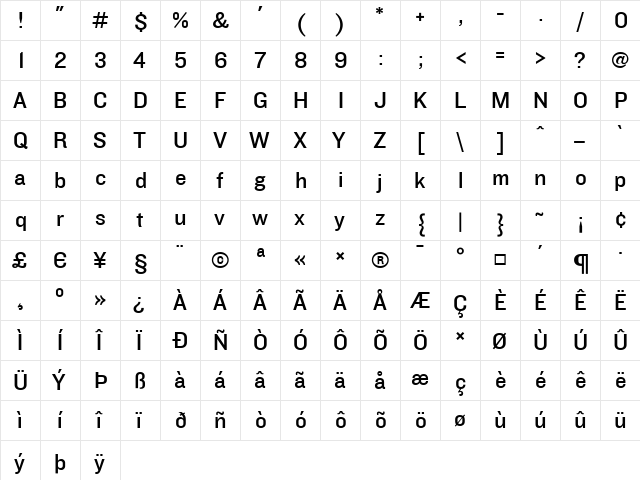
Knockout Medium
Design Context for Knockout Typeface
Knockout takes a measured approach to typography — its balanced proportions and neutral character make it a reliable workhorse for both digital and print work.
Pro Tip: Use Knockout in both headline and body roles to test its range before committing to a single application.